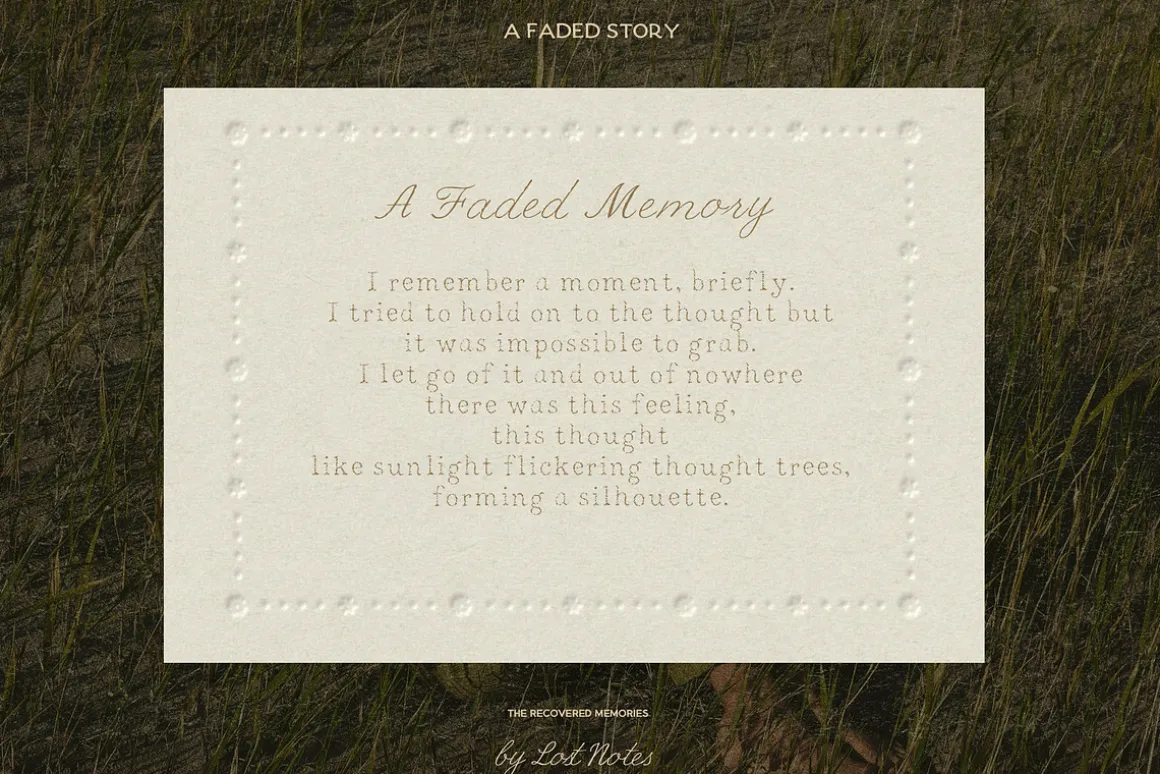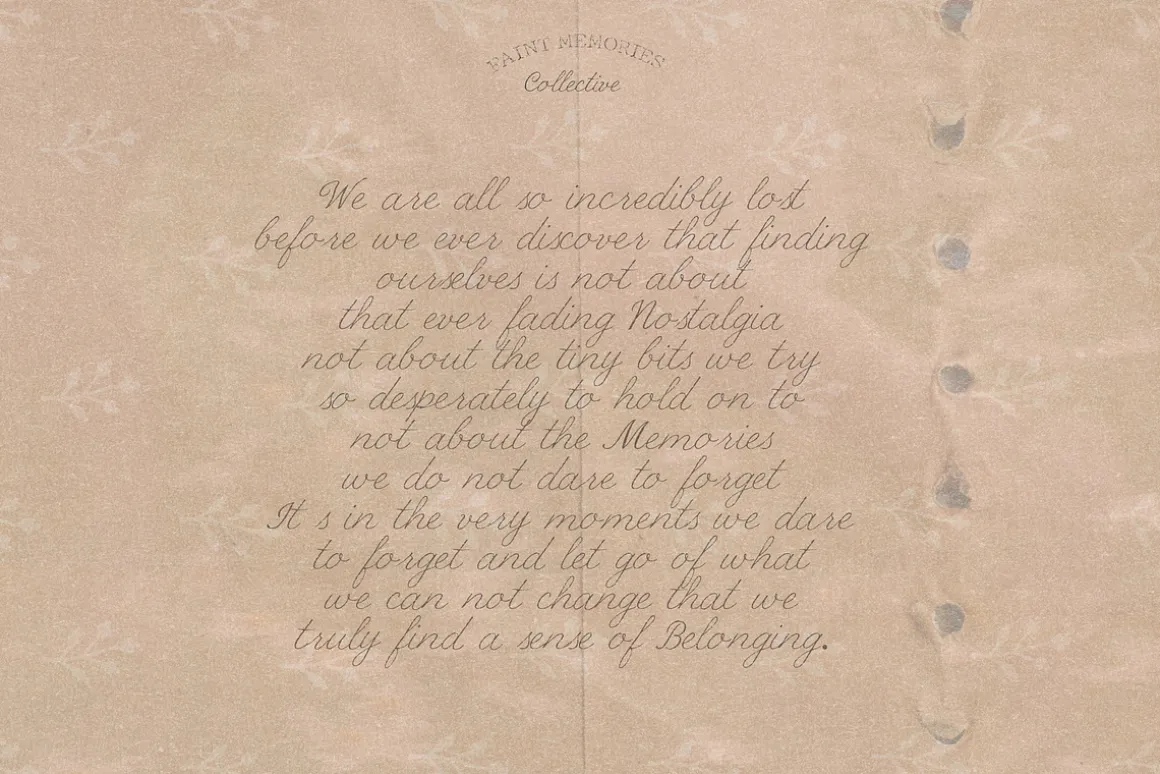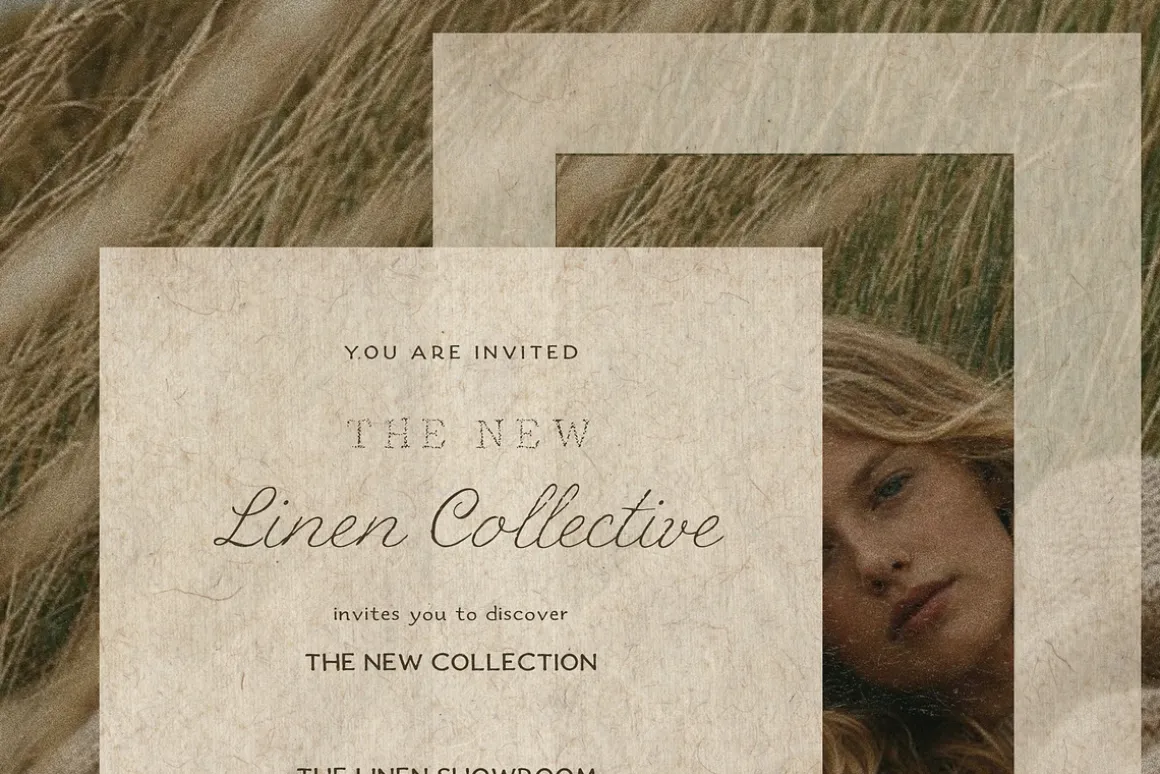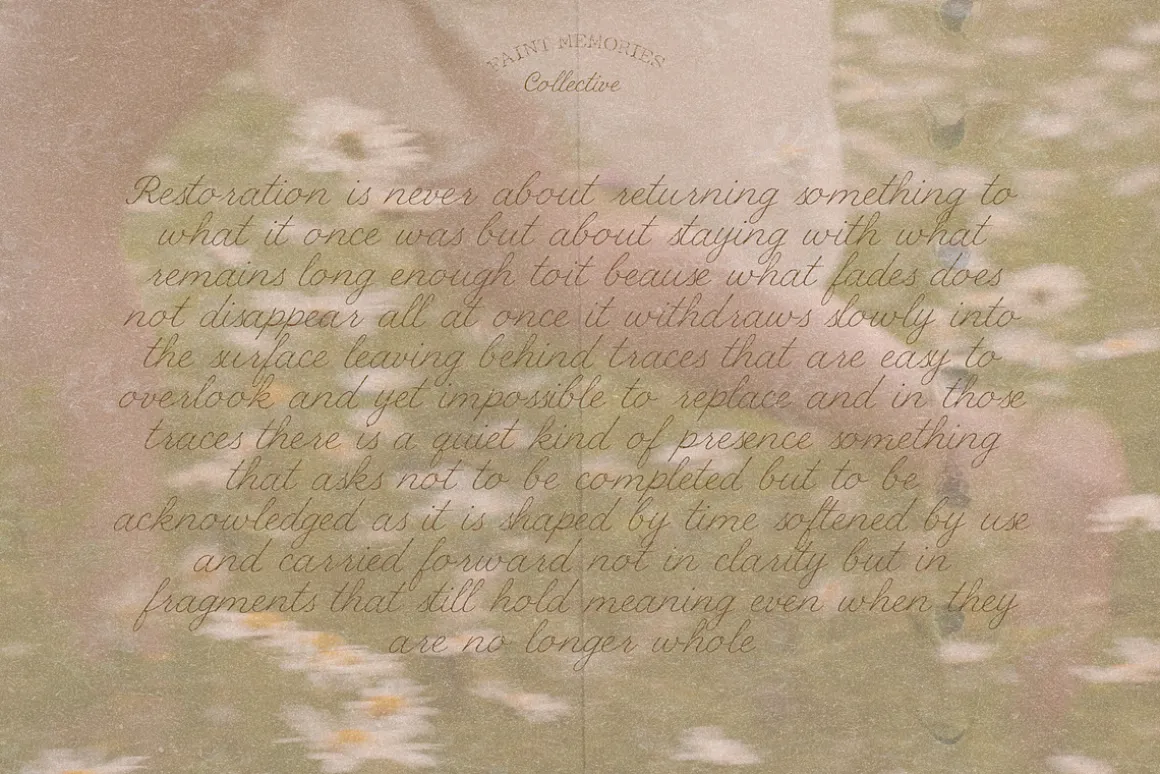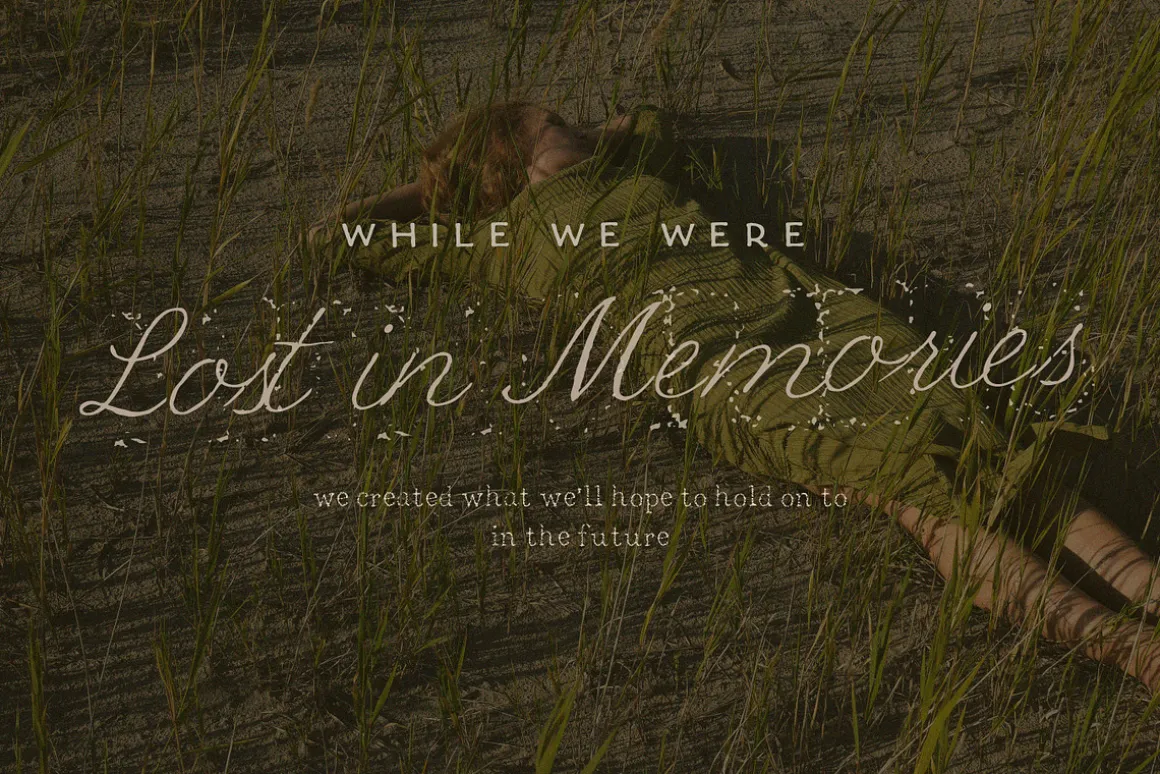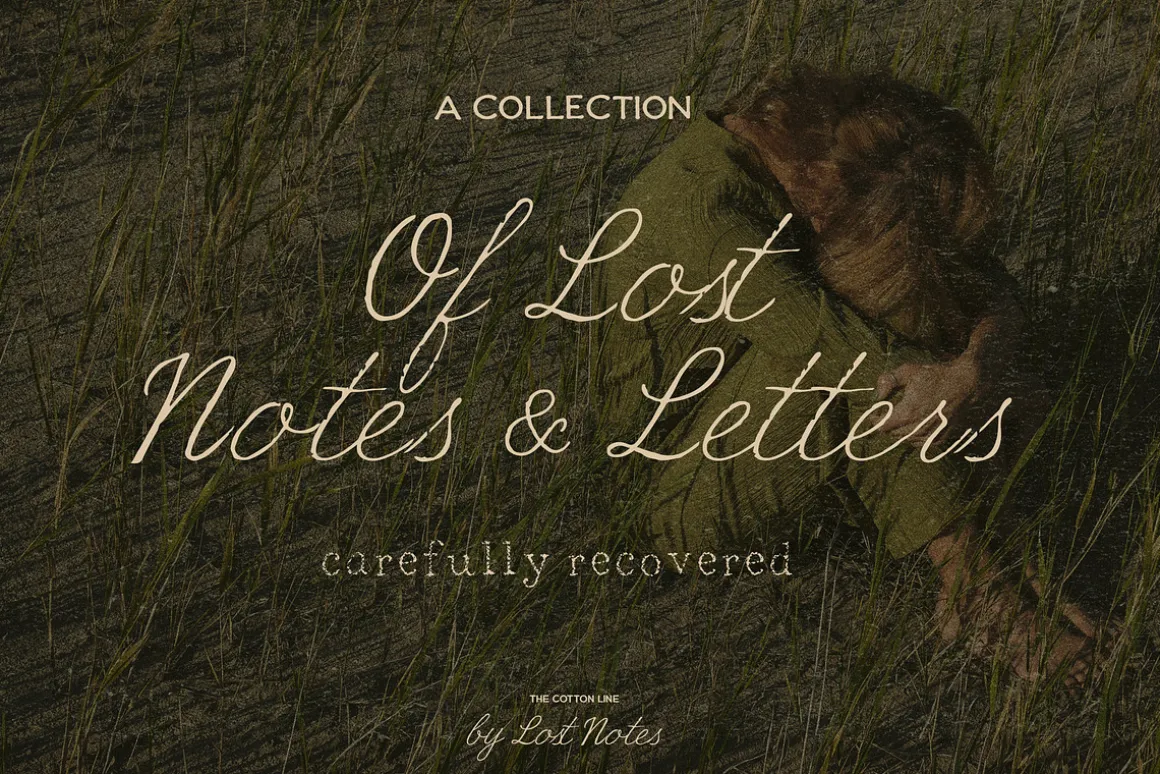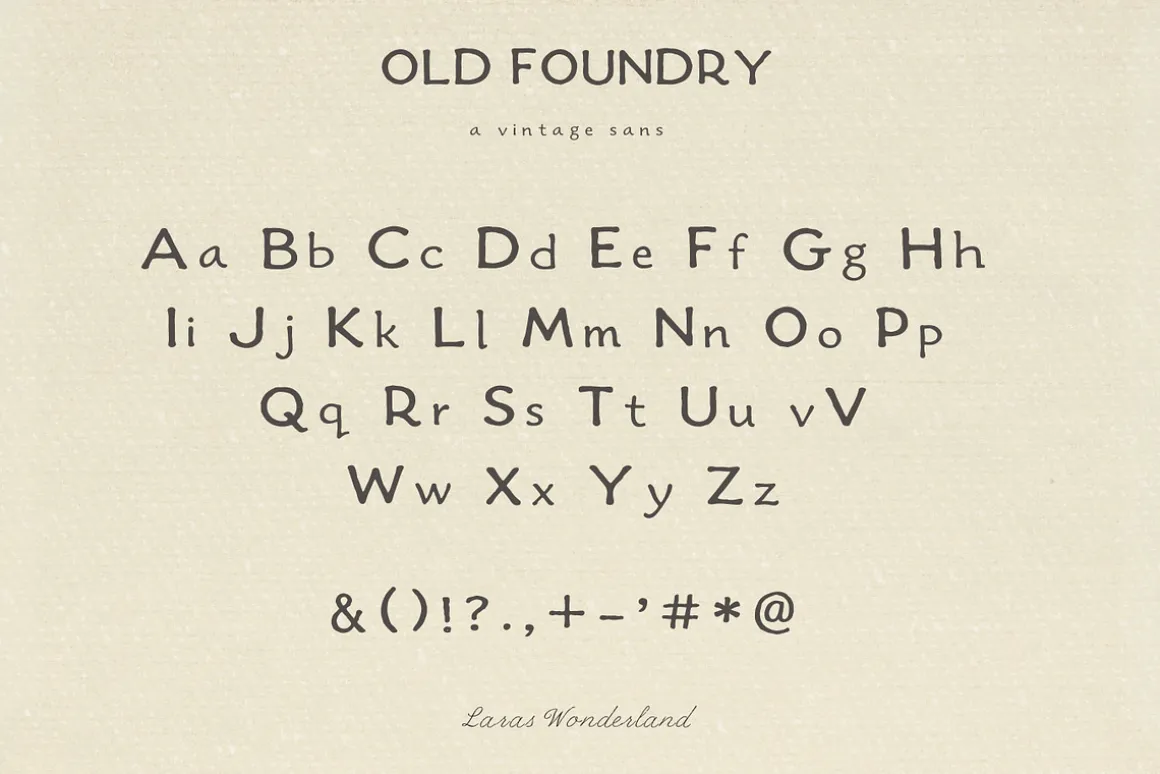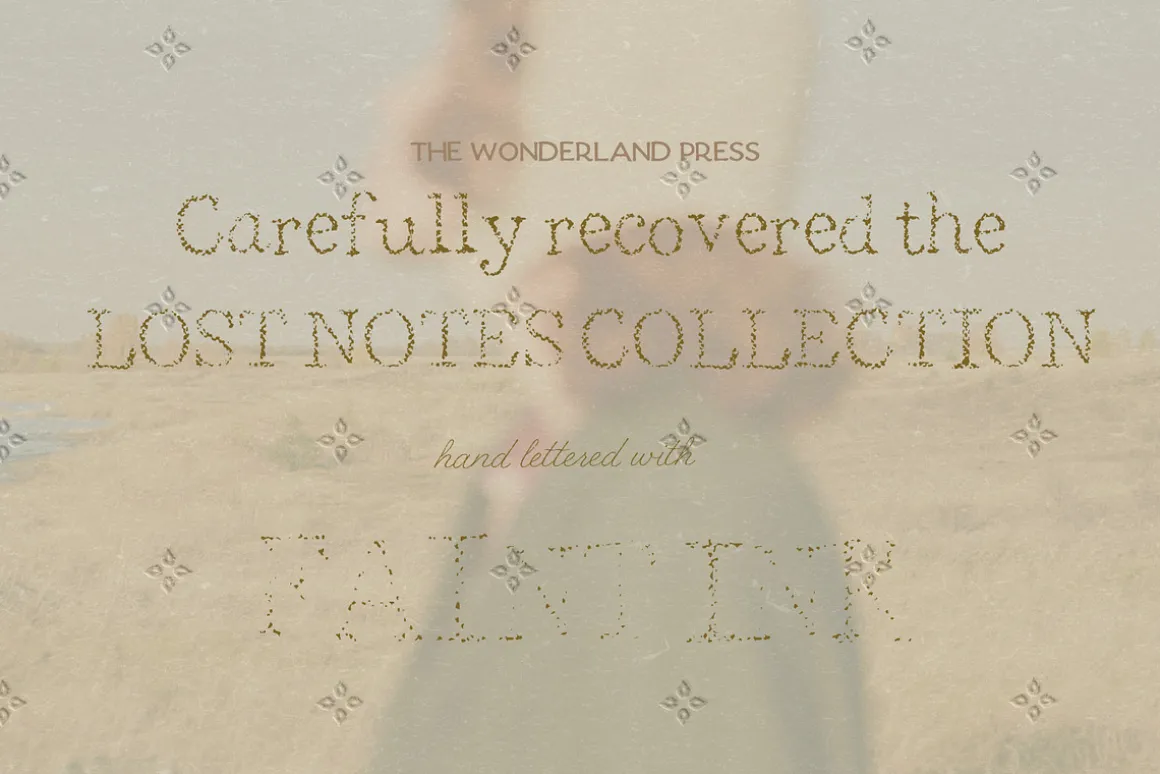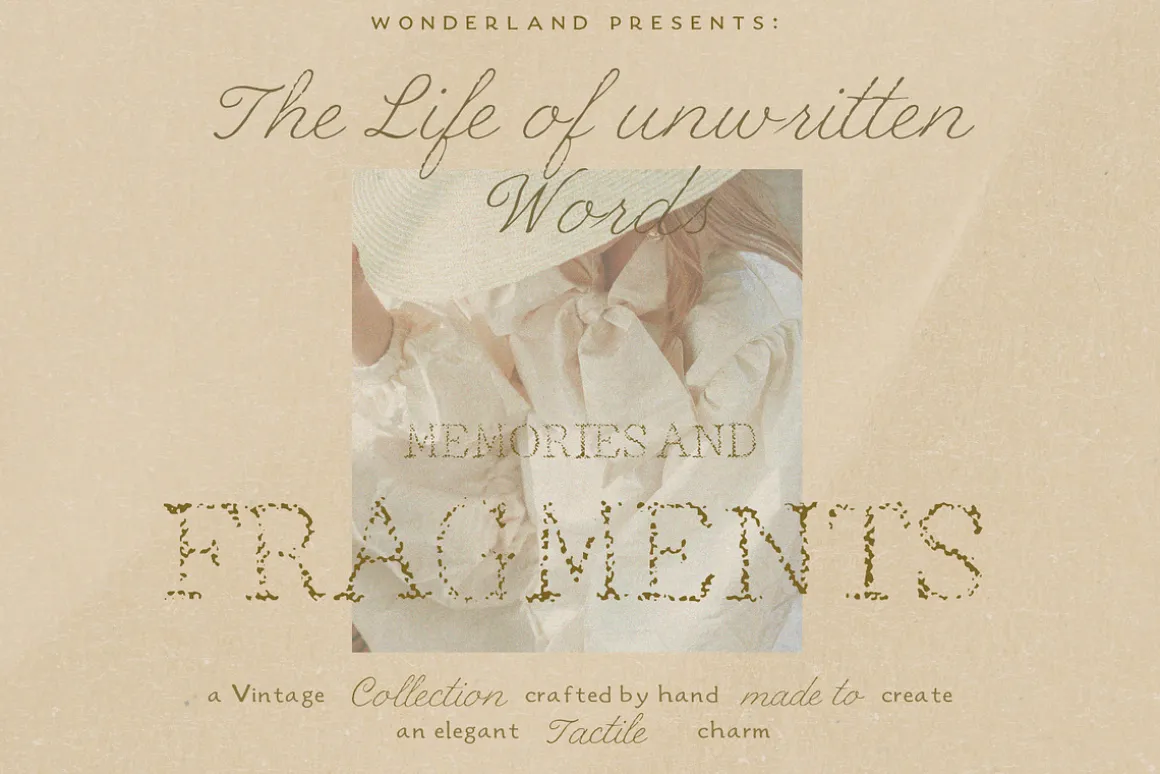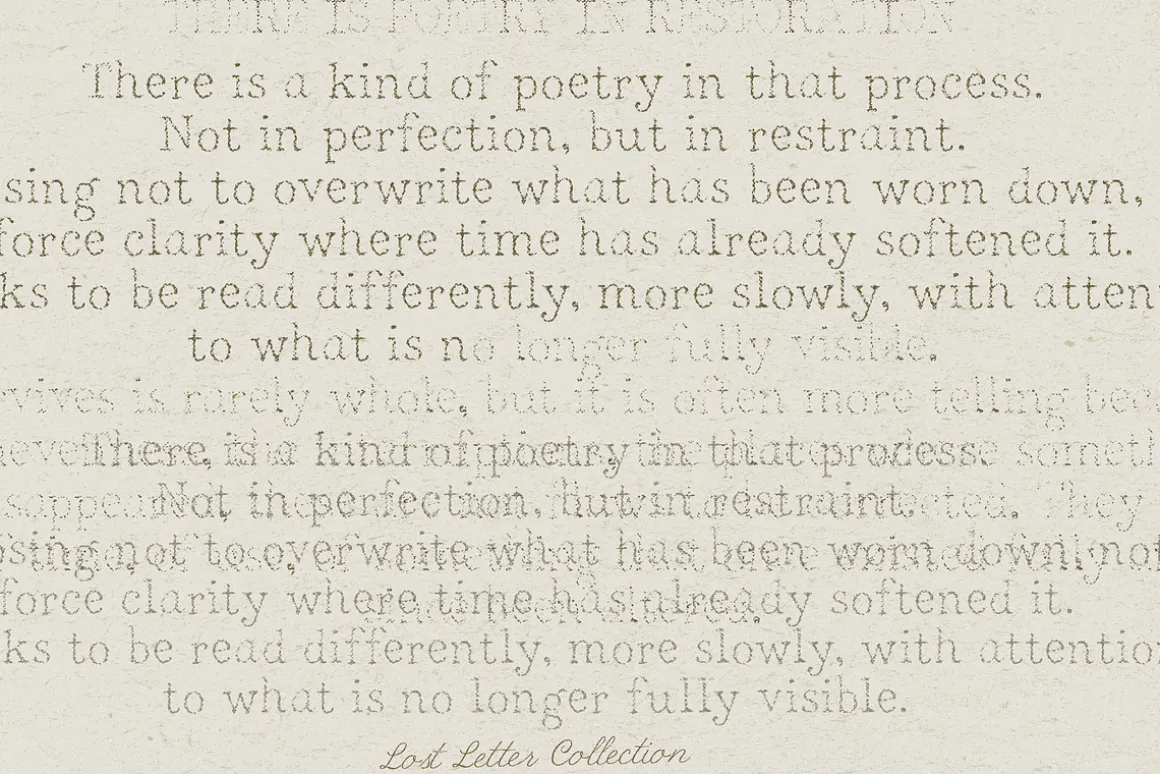
Discover the magic of authentic texture, carefully brought to life in a collection of 5 handcrafted fonts. Every detail is crafted with care for tactile designs and an outstanding look.
Discover a perfect font pairing of a clean yet vintage sans, a pencil script and a textured serif that comes in three weights that perfectly mimic the effect of fading typewriter or printer ink.